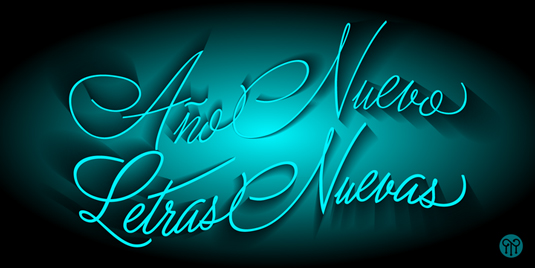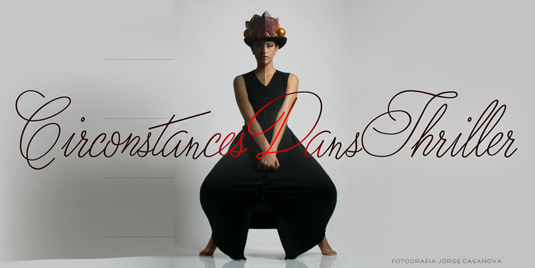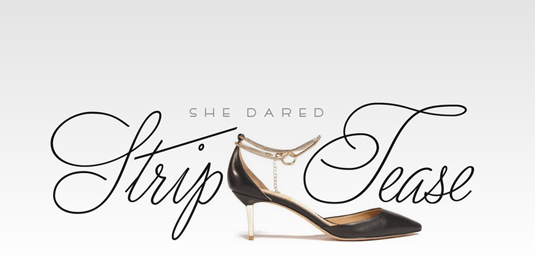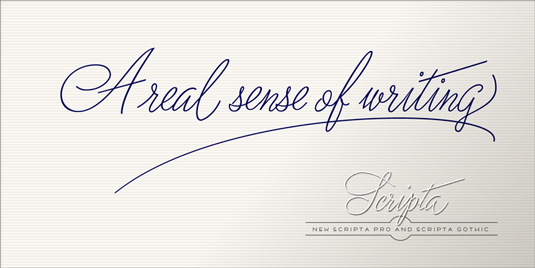
Font of the day: Scripta Pro
Scripta Pro by John Moore
Today's typeface of choice is Scripta Pro, created by designer John Moore. Available from MyFonts, the font is described as a 'commercial script writing similar to those used in ads during the 1940s and 50s, with fine lettering combinations of that time'.